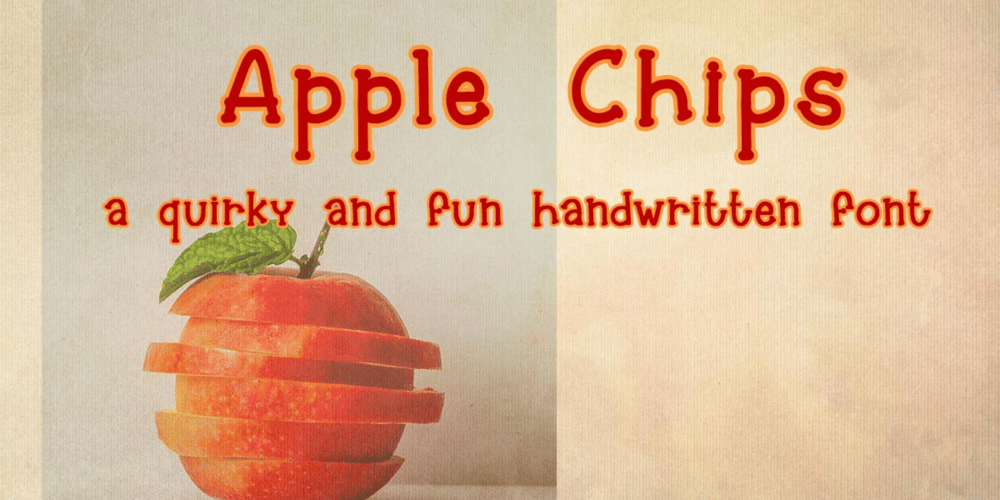
Apple Chips
Apple Chips font
Apple Chips Font Family was designed by Ira Natasha and published by Ira Natasha. Apple Chips contains 1 styles and family package options. Apple Chips is a quirky and fun handwritten font. A new fresh handmade font with smooth edges. This font is modern, versatile, and easy to read, making them ideal for digital displays, branding, and print. They are widely used for their sleek and professional appearance and often convey clarity and simplicity. This font is support multi language and will perfect for many different project ex: quotes, logo, blog header, poster, branding, fashion, apparel, letter, invitation, stationery, etc….